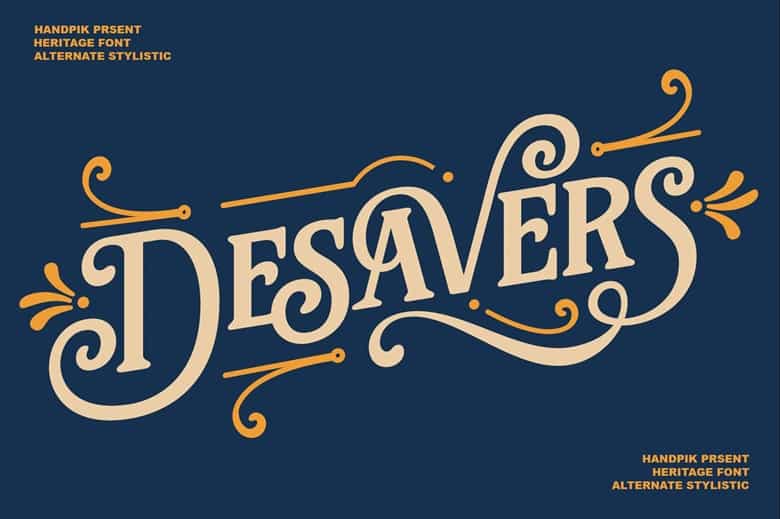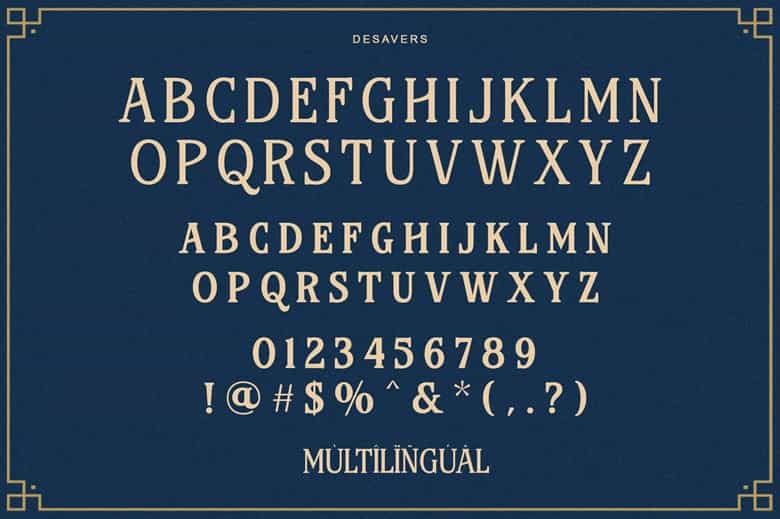
Discover Desavers Font, part of the Serif collection—a versatile and unique font perfect for adding a personal touch to your projects. Download it for free and enjoy crafting designs with style, from invitations to social media posts. This font is available exclusively for personal use, giving you the freedom to create without limits. Unlock your creativity with Desavers Font today!
Desavers is a modern serif font. Desavers is perfect for many projects: book, magazines, logo, branding, photography, quotes, blog header, poster, advertisements, etc.